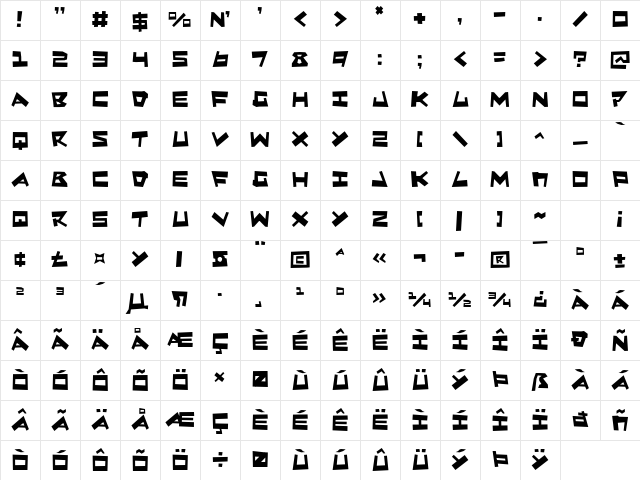
Quake & Shake Regular Free Font
Quake & Shake Regular
Quake & Shake Family
Complete Quake & Shake Regular glyph index. Displaying only characters natively supported by Quake & Shake Regular font.
Design Context for Quake & Shake
Quake & Shake is a composed and adaptable typeface that performs quietly and consistently across a wide range of design contexts.